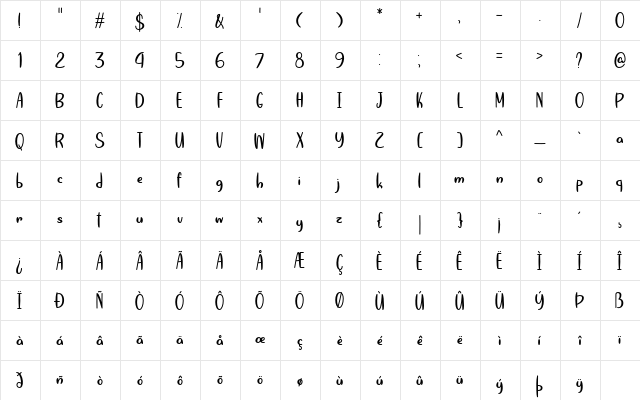
Summers Victory Over Spring Regular
Design Context for Summers Victory Over Spring Typeface
Summers Victory Over Spring is a composed and adaptable typeface that performs quietly and consistently across a wide range of design contexts.
Pro Tip: Use Summers Victory Over Spring in both headline and body roles to test its range before committing to a single application.